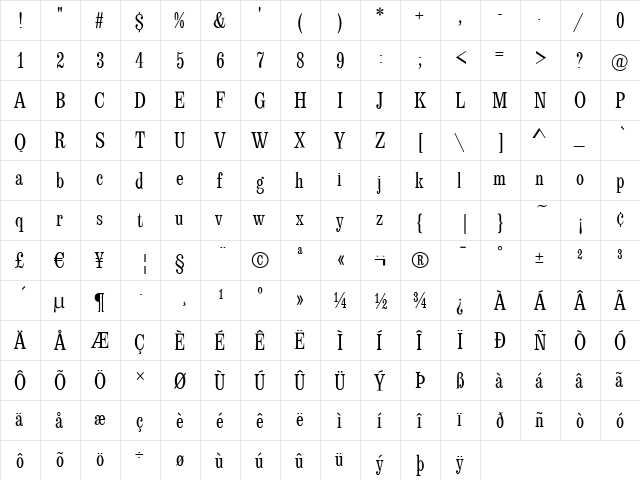
LatinCondensed Regular
Design Context for LatinCondensed Typeface
LatinCondensed is a composed and adaptable typeface that performs quietly and consistently across a wide range of design contexts. The condensed width makes it efficient for tight spaces without sacrificing legibility.